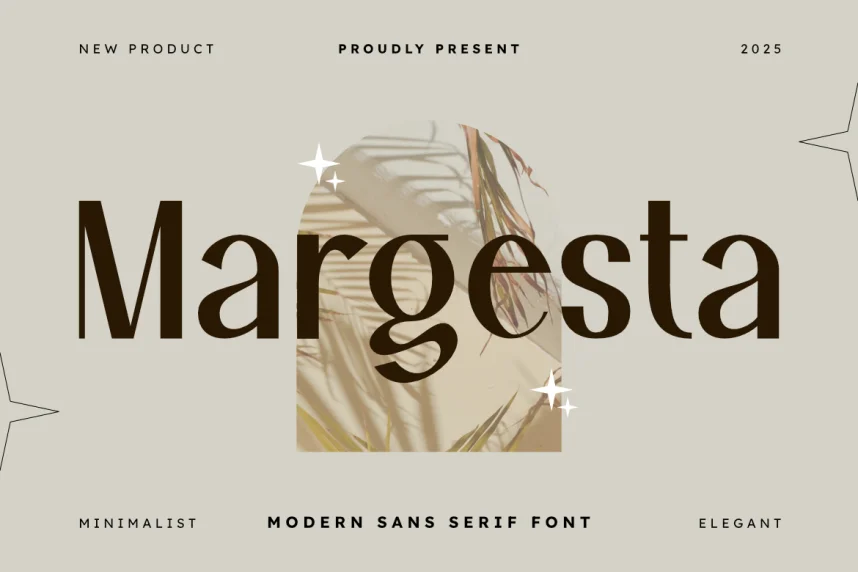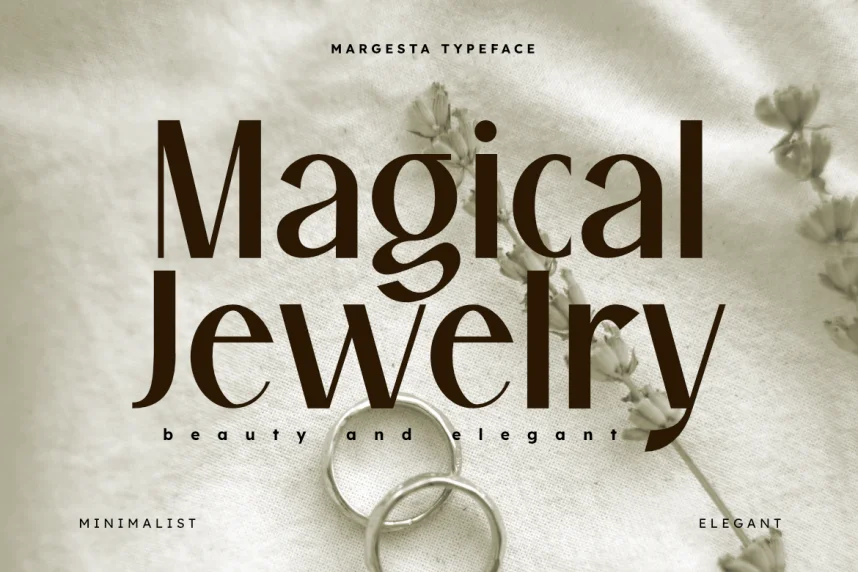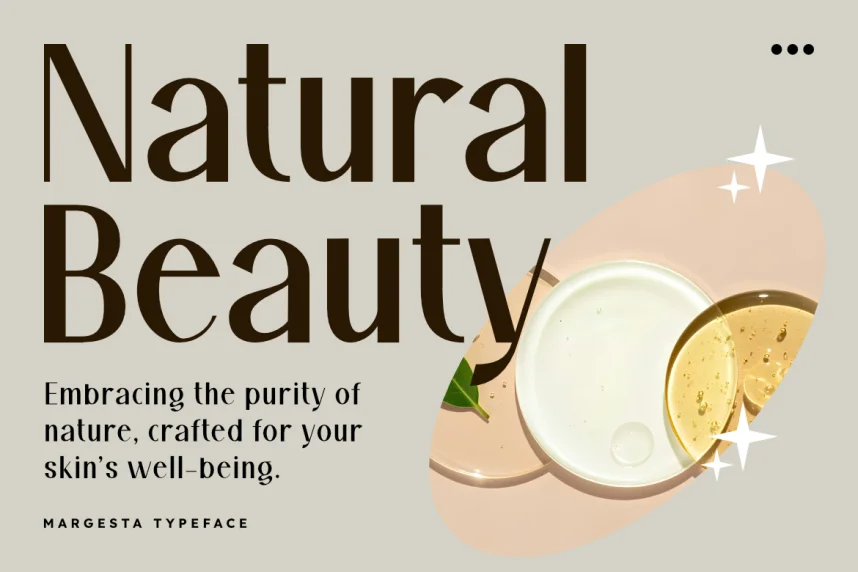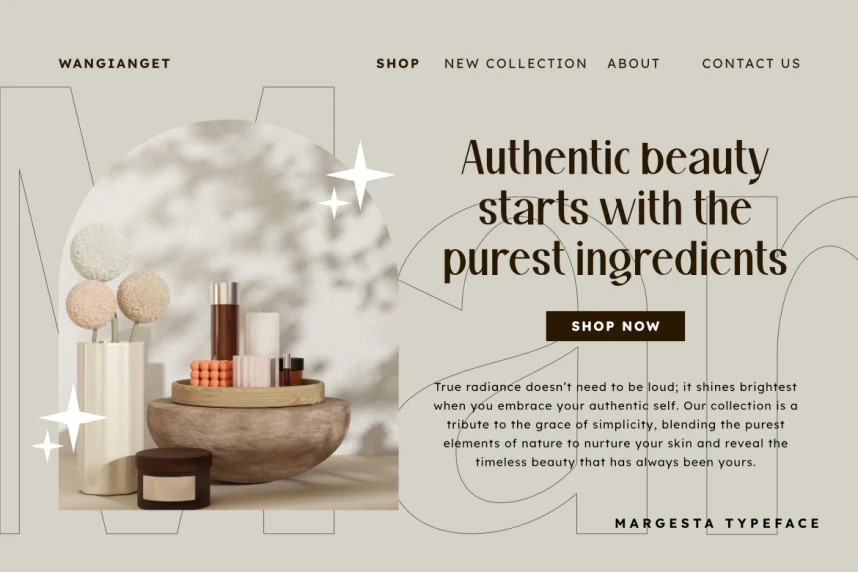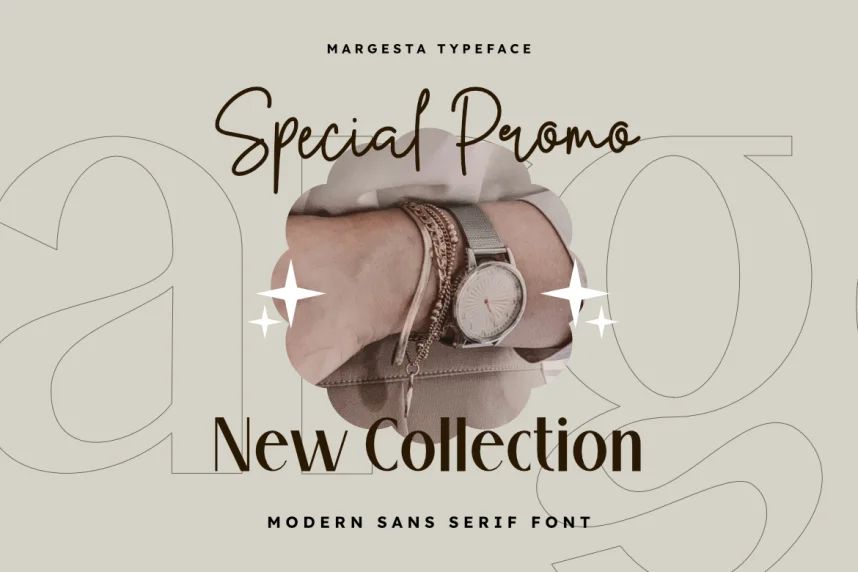
Margesta Font is a modern serif typeface designed for clear structure and professional tone. Designers often need serif fonts that feel current rather than traditional. Margesta balances classic form with modern spacing.
This font belongs to the serif category. Its letterforms feature moderate stroke contrast, clean serifs, and consistent proportions. The font performs well in both print and digital formats.
Margesta is suitable for branding, editorial layouts, website headings, logos, and print materials. Designers often pair it with a simple sans-serif for body text.